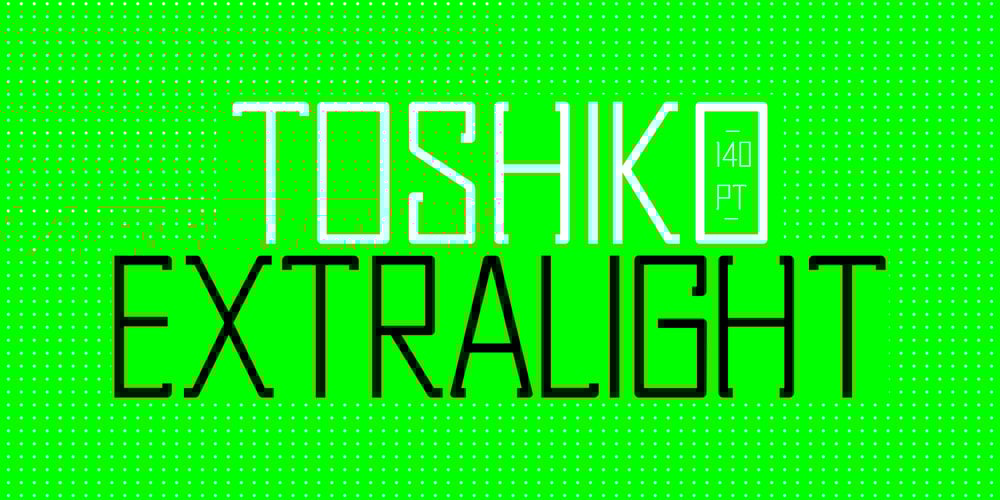
Toshiko Font Family was designed by published by HyperFluro. Toshiko contains 2 styles and family package options. Toshiko is an experimental typeface which mixes techno and traditional designs, creating a straight edged but curly serif font. The characters themselves are very carefully crafted, with precise, accurate lines and predictable forms, but the serifs, as well as the indecision between curved and square corners, gives the font an impression of unpredictability that shows off its creative freedom. Whether you’re looking to brand something technological or express rebellion, Toshiko can create the mix of conformist and nonconformist that will draw readers into interest and attentiveness.